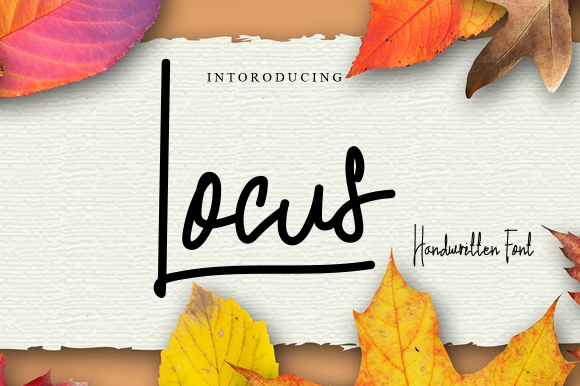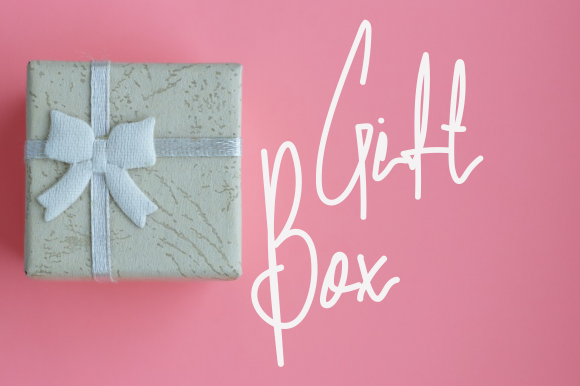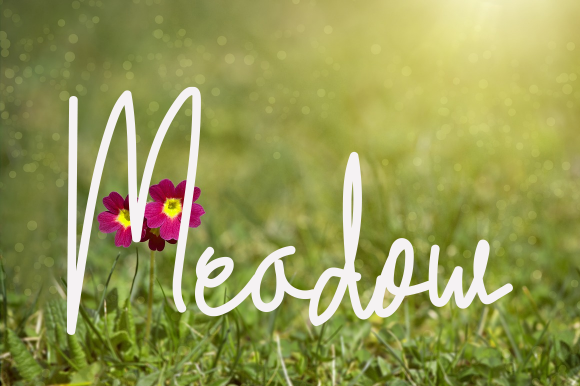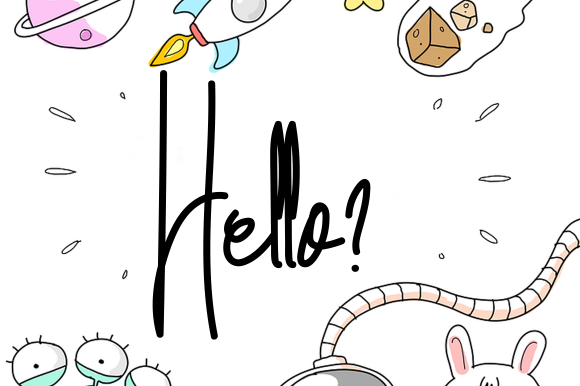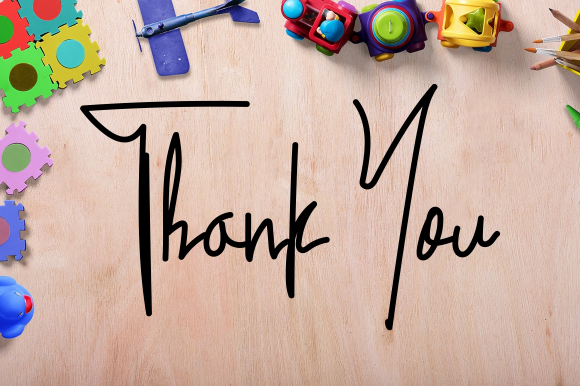
About Locus Font
Locus is a flowing and natural handwritten font, that can easily stand out. Simple but with a strong visual effect, this font will instantly make your creation more appealing than any others.